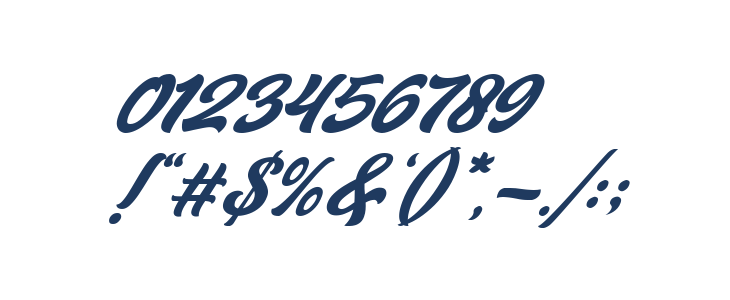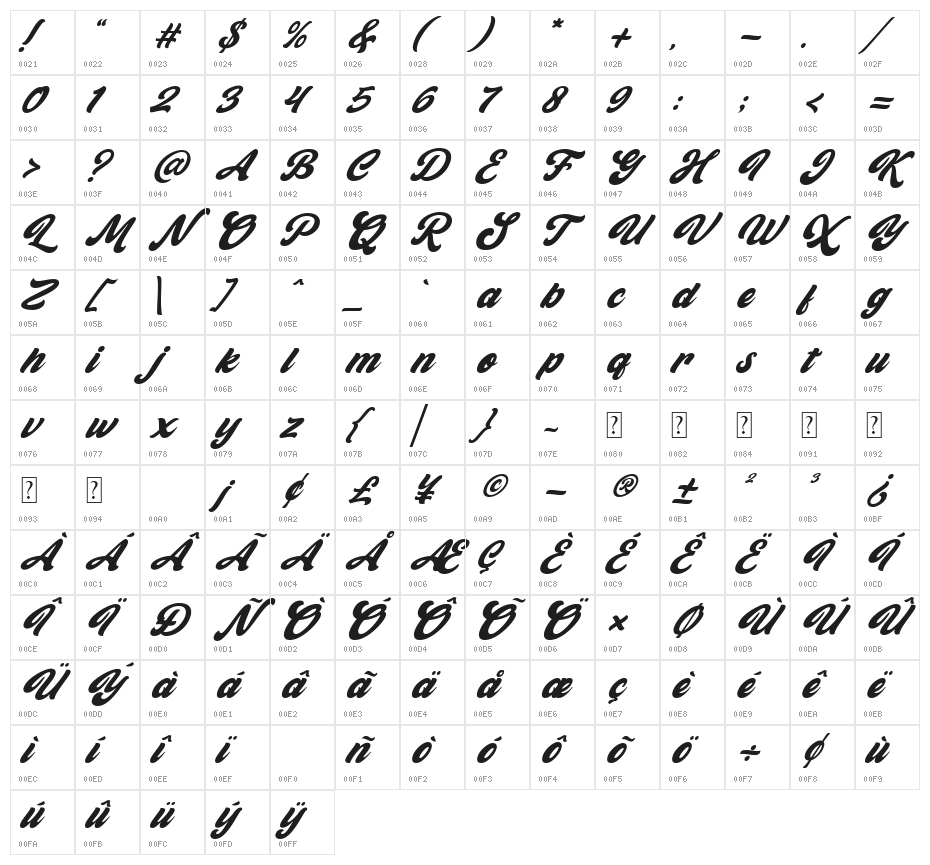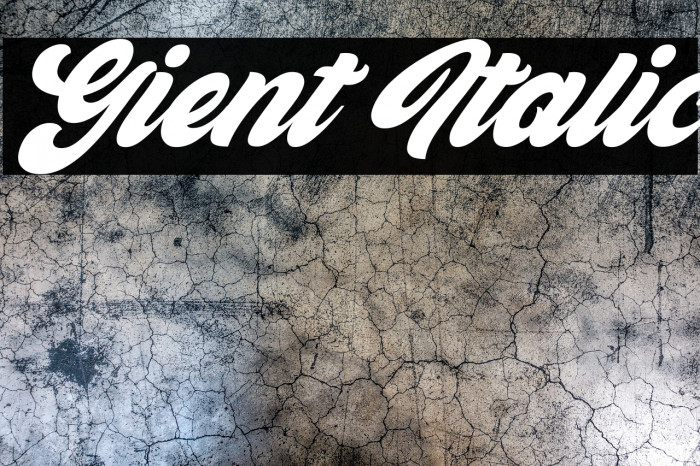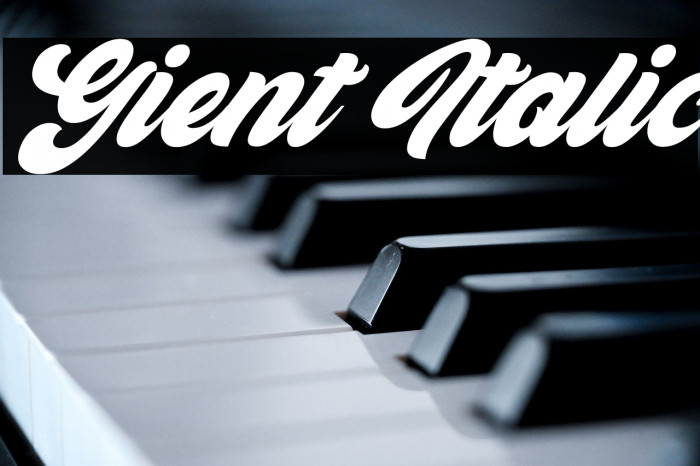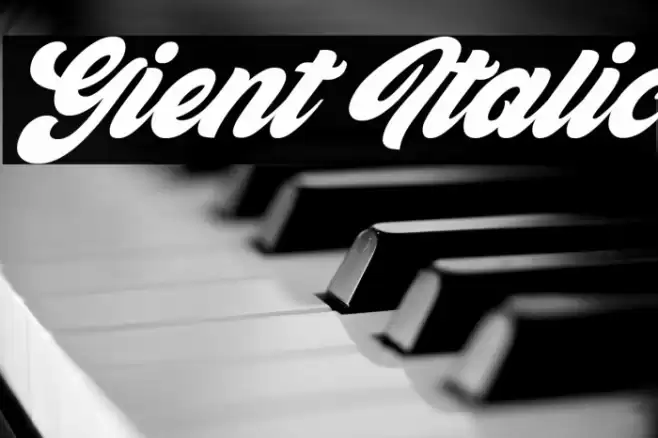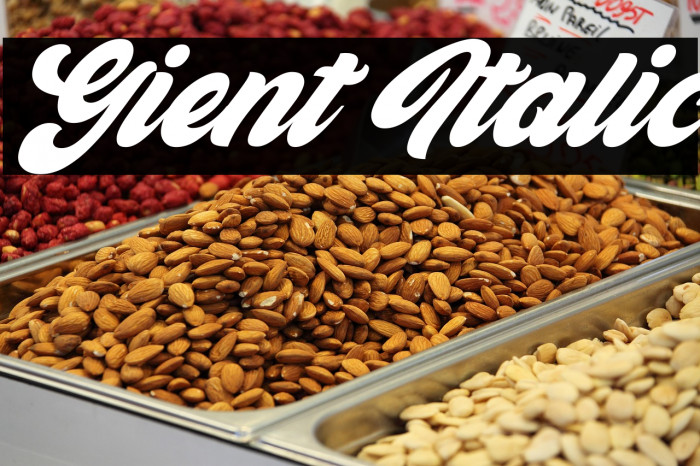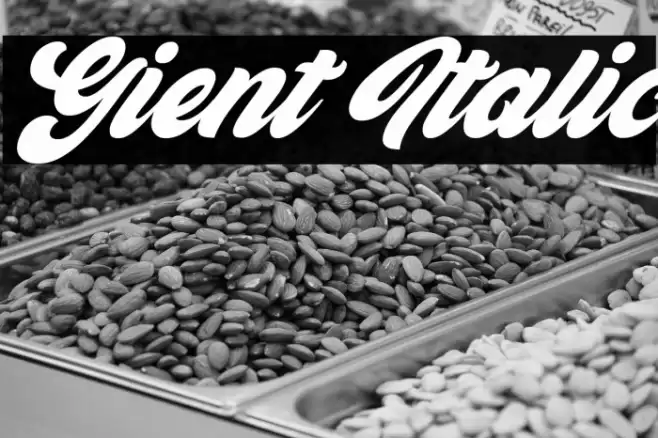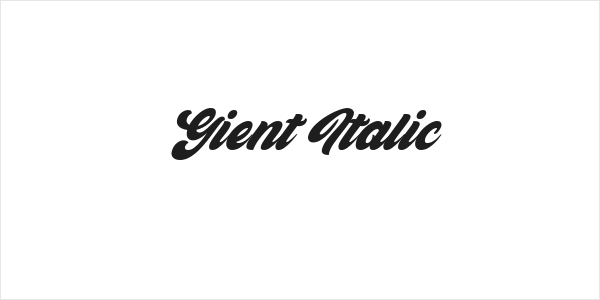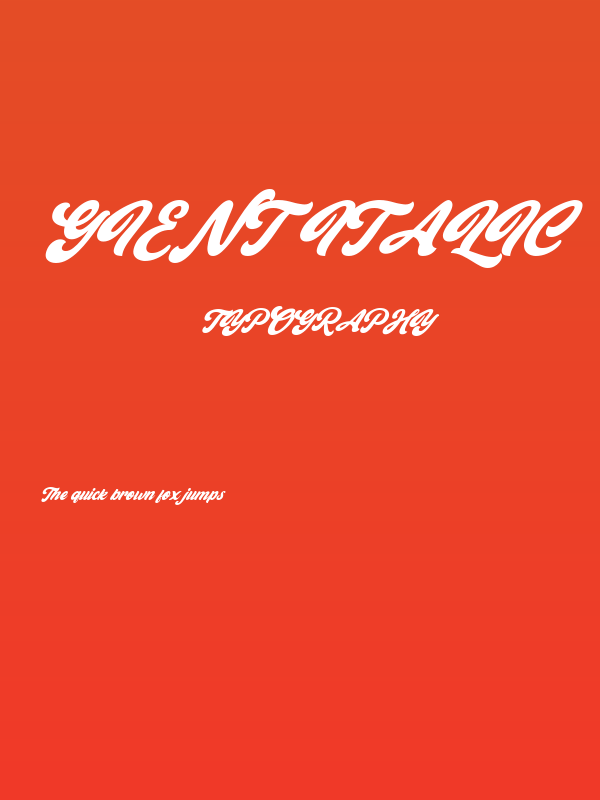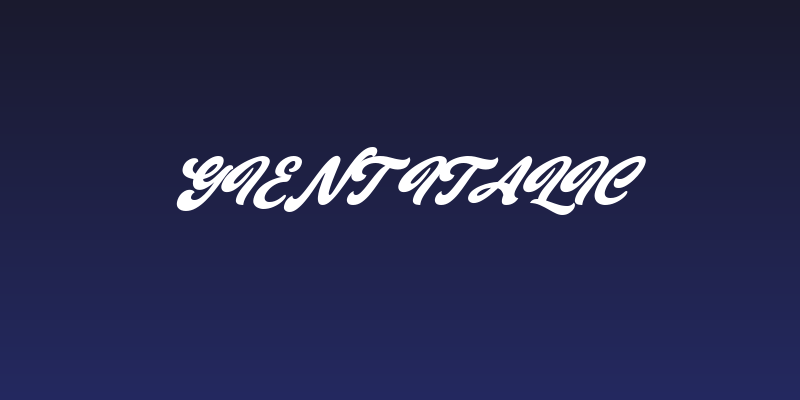
Gient Italic Font
Gient Italic Description
This font features a bold, italicized script style with a flowing, cursive appearance. The characters are connected, giving it a handwritten feel, yet the boldness adds a modern touch. The uppercase letters are elegantly curved, while the lowercase letters maintain a consistent flow. Numbers and special characters are designed to match the overall aesthetic, ensuring a cohesive look across all elements. The font's thick strokes and smooth curves make it highly legible, even at smaller sizes, while the italic slant adds dynamism and movement to the text.
| Proposed Projects | Ideal for branding projects, wedding invitations, greeting cards, and any design that requires a personal, elegant touch. |